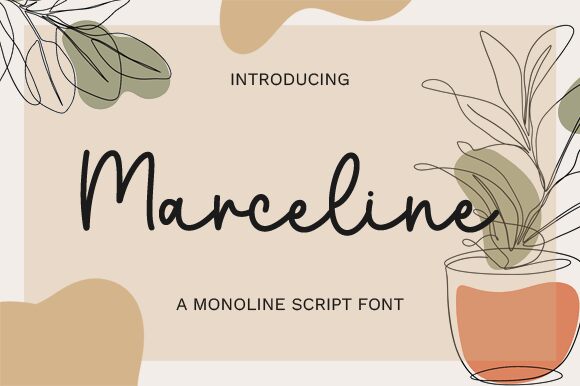
Marceline, a creation of Nirmala Creative, is a handwritten font that exudes a personal touch with its fluid, organic strokes. It carries the charm of an intimate note with its gentle curves and natural flow, reminiscent of elegant cursive writing. The distinctive flair of Marceline lies in its casual yet sophisticated appearance, perfect for designs that require a bespoke feel.
Its aesthetic appeal bridges the gap between informal warmth and stylish grace, making it suitable for invitations, branding projects, and personalized merchandise. Its friendly demeanor shines in contexts where a touch of humanity and approachable elegance is desired. Marceline offers designers the opportunity to infuse their creations with the authenticity and character often found in traditional penmanship.